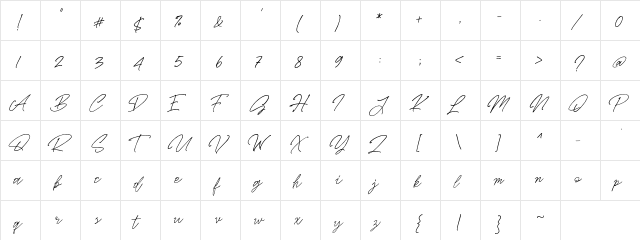
Masterline Regular
Design Context for Masterline Typeface
Masterline is a composed and adaptable typeface that performs quietly and consistently across a wide range of design contexts.